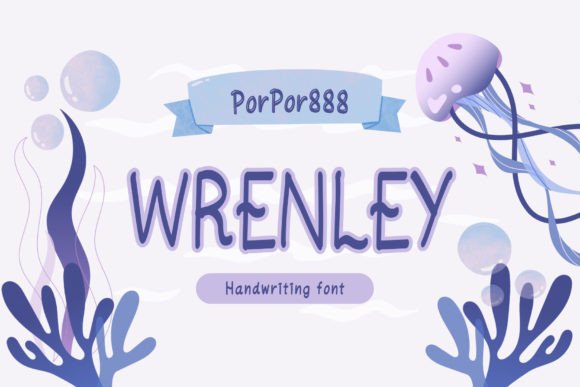
Journey through a whimsical world of creativity with Wrenley, a playful sans-serif font that awakens your imagination. Picture the elegance of handwritten notes, the charm of heartfelt invitations, the vibrancy of eye-catching logos, and the joy of personalized projects. Wrenley, the brainchild of surachet2548, is a font that will captivate your audience with its undeniable allure.
Unleash your creativity and make a statement with Wrenley. Let its fluidity and gentle curves embrace your words, adding a touch of sophistication to your designs. Express yourself with confidence, knowing that Wrenley will make your message shine. Whether you're a seasoned designer or just starting your creative journey, Wrenley is your perfect companion.
Dive into Wrenley's world and let your designs flourish. Experience the magic of personalized notes that feel like warm embraces, the delight of cheerful invitations that spark anticipation, the impact of distinctive logos that leave a lasting impression, and the satisfaction of projects that reflect your unique style. Wrenley is more than just a font; it's an artistic gateway to a world of endless possibilities.
Don't settle for ordinary fonts that blend into the background. Embrace the captivating charm of Wrenley and let its whimsical spirit ignite your creativity. Transform your designs into masterpieces, leaving an indelible mark on the minds of your audience. Let Wrenley be your creative compass, guiding you towards innovative and captivating designs.
Wrenley is not just a font; it's an experience. It's the feeling of pure joy as your creative visions come to life. It's the satisfaction of crafting designs that resonate with your audience, evoking emotions and leaving a lasting impact. It's the thrill of expressing yourself in a way that is uniquely yours.
Embrace the magic of Wrenley and let your creativity soar. Unlock the endless possibilities that await you and embark on an artistic adventure like no other. Experience the delight of designs that captivate and inspire, all thanks to the enchanting touch of Wrenley.